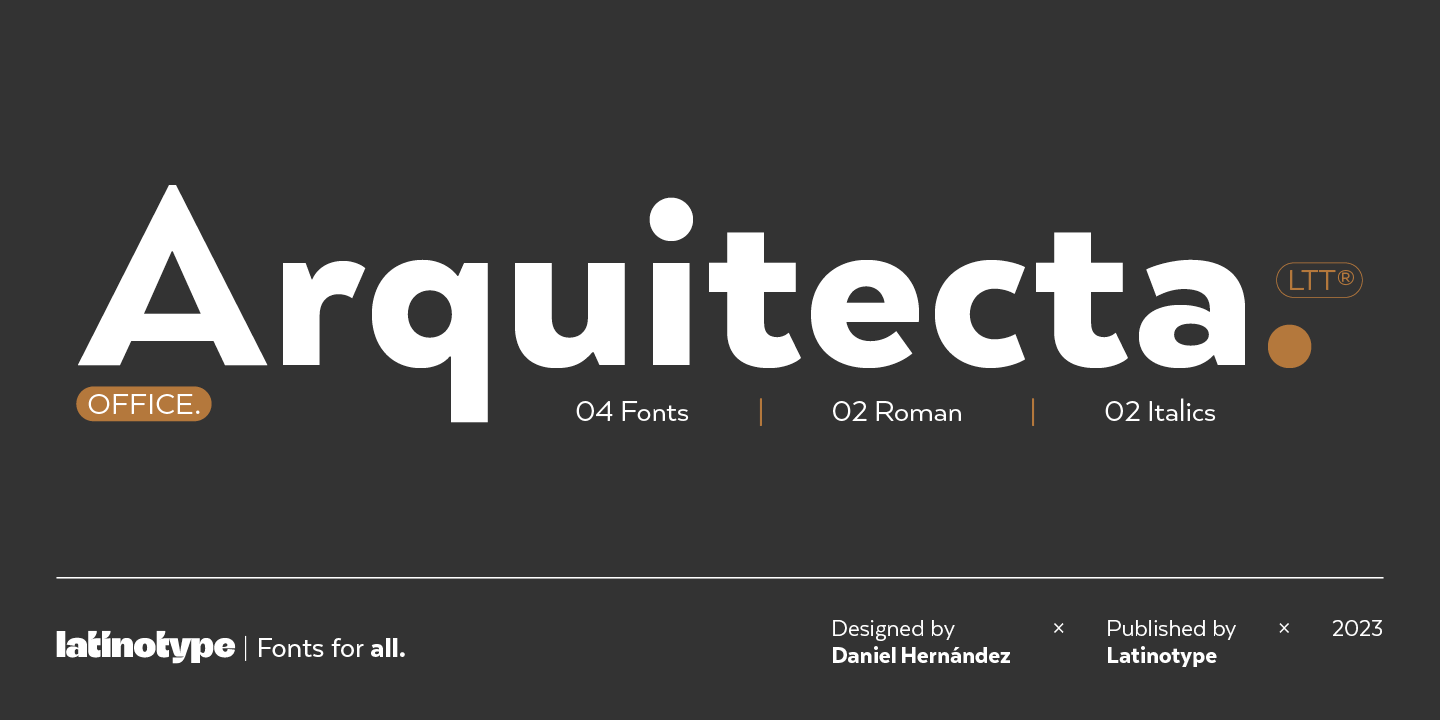
Arquitecta Office Font is ideal for architectural firms, engineering companies, construction documentation, technical drawings, blueprint annotations, urban planning materials, and professional design studios. This specialized typeface excels in creating precise and authoritative technical communications.
Arquitecta Office Font is exciting because it combines architectural precision with office functionality, featuring clean geometric letterforms that reflect the structural clarity and methodical approach essential to architectural and engineering professions while maintaining exceptional readability.
The Arquitecta Office Font family includes multiple weights from Light to Bold, along with condensed variations specifically designed for technical documentation needs. This comprehensive collection provides architects and designers with complete typographic solutions for professional project requirements.
Arquitecta Office Font Free Download provides access to a professionally crafted typeface designed specifically for architectural and engineering applications. This sophisticated font features precisely engineered letterforms with optimal spacing and proportions that ensure exceptional clarity in technical documents and professional presentations. The typeface showcases clean geometric construction and consistent character relationships that reflect the precision and attention to detail essential in architectural practice. Its functional character makes it particularly suitable for firms and professionals who require reliable typography that communicates competence and technical expertise. Arquitecta Office Font delivers consistent performance across various professional applications, from detailed technical drawings to client presentations. The font's architectural aesthetic and professional quality make it an indispensable tool for design professionals working on projects that require clear communication of complex technical information while maintaining visual authority and professional credibility.